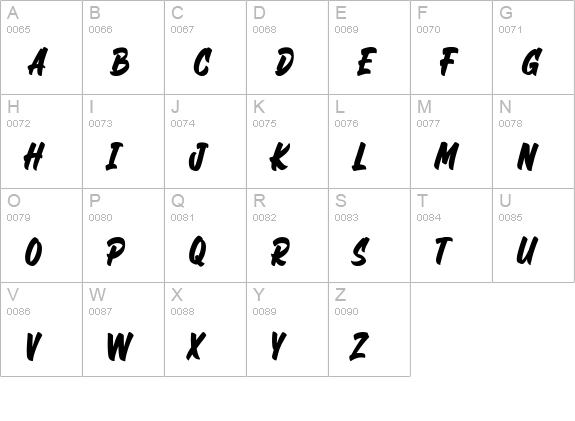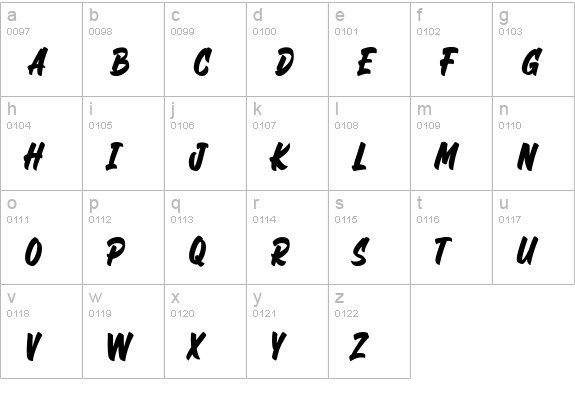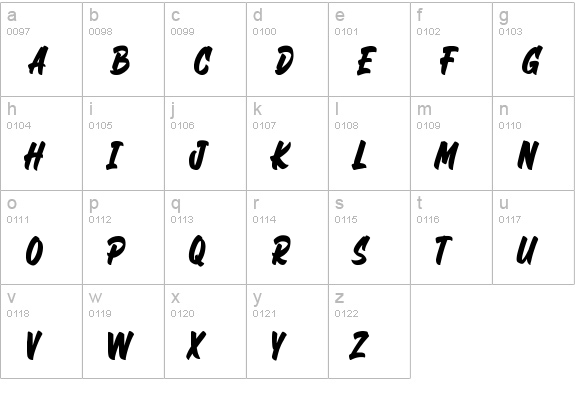
Introducing Road Blast Font, a dynamic and energetic typeface that brings a sense of speed and movement to your designs. This bold and eye-catching font is perfect for projects that need a touch of excitement and flair. The Road Blast Font is designed with sharp edges and sleek lines, giving it a modern and edgy look that will make your text pop.